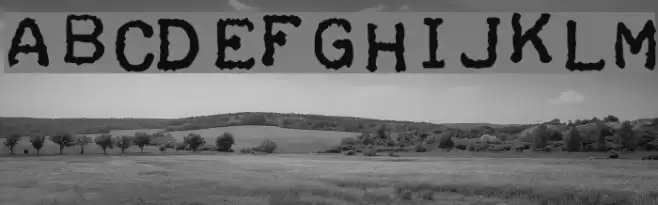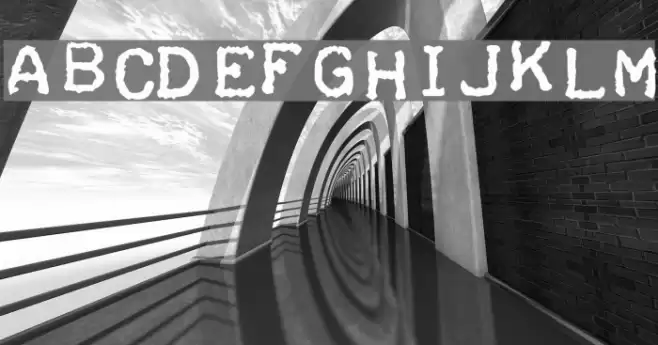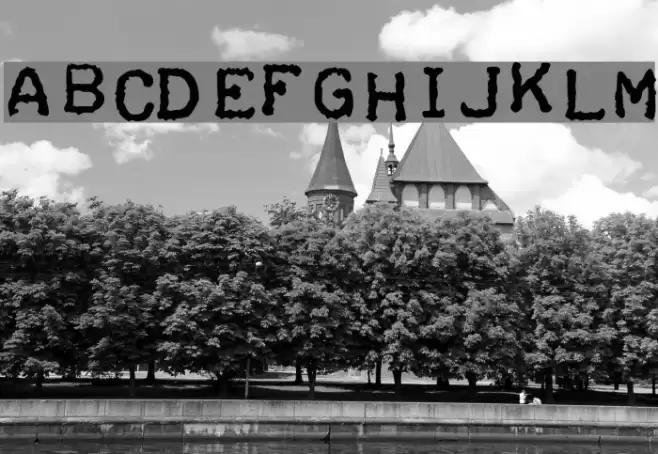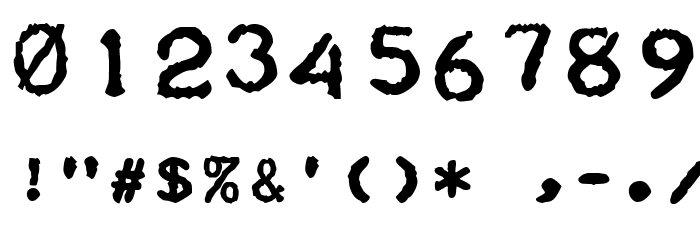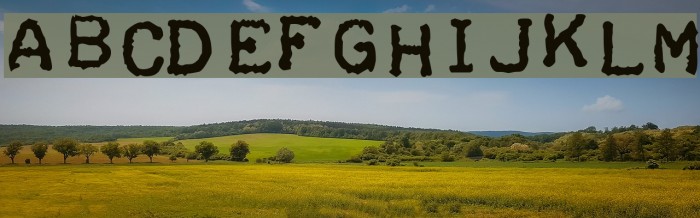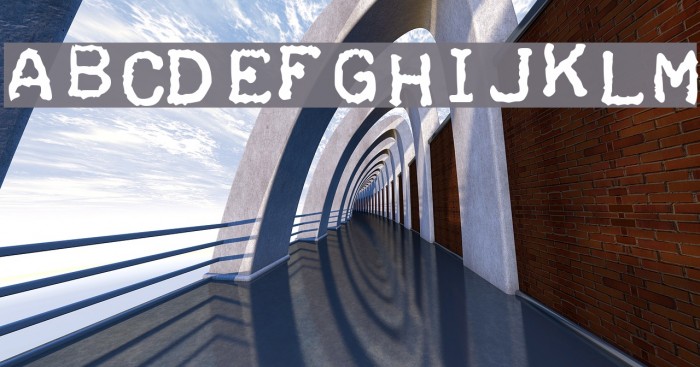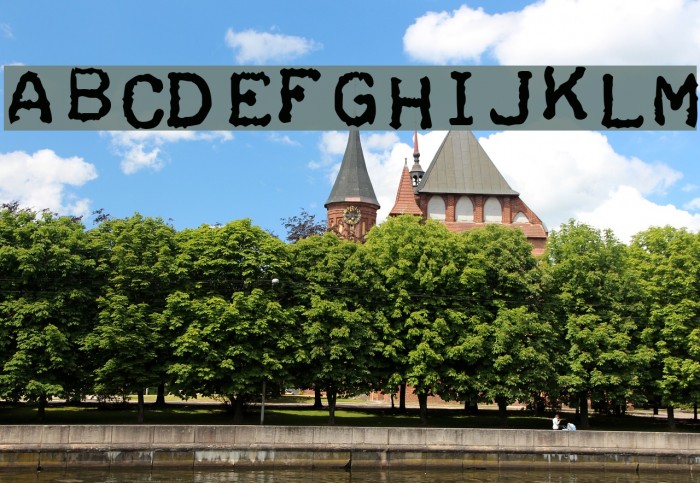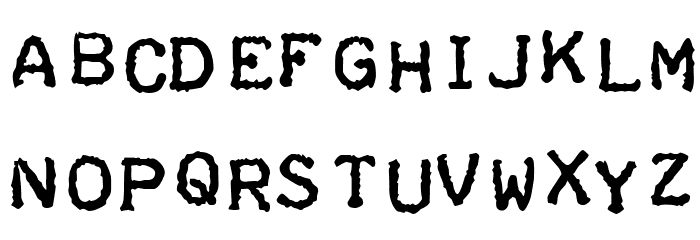
Teleprinter Bold Italic Font
Teleprinter Bold Italic Description
This font features a bold and italicized style with a unique, textured appearance reminiscent of vintage typewriter output. The characters have a rough, distressed look, giving them a handcrafted feel. The uppercase and lowercase letters maintain a consistent style, with rounded edges and irregular strokes that add to the font's charm. The numerals and special characters follow the same design principles, ensuring a cohesive look across all glyphs. This font's distinctive style makes it stand out, offering a nostalgic yet modern twist.
A bold, italicized font with a textured, vintage typewriter look from Broken fonts.
- Proposed Projects: Ideal for projects that require a retro or vintage aesthetic, such as posters, book covers, or branding materials that aim to evoke nostalgia.
- Overall Style: Vintage